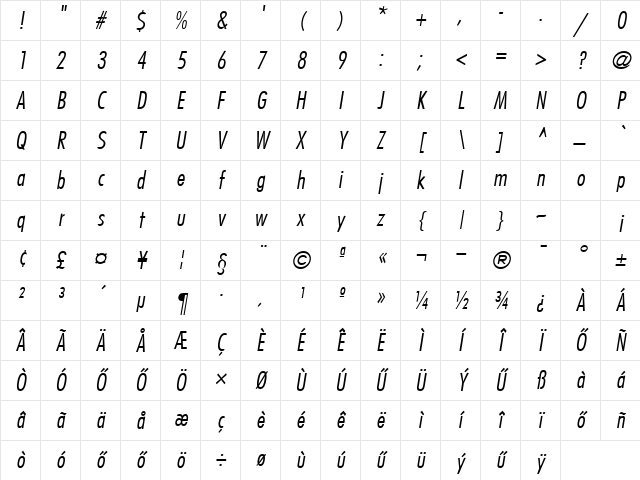
HFutura Condensed Light Italic
Design Context for HFutura Condensed Light
HFutura Condensed Light has a distinctly futuristic character, with geometric precision and clean angles that feel at home in technology, gaming, and sci-fi contexts. The slanted form adds forward momentum and visual energy. Its slender proportions lend an understated elegance to any composition. Its narrow stance lets it pack a punch even in space-constrained designs.